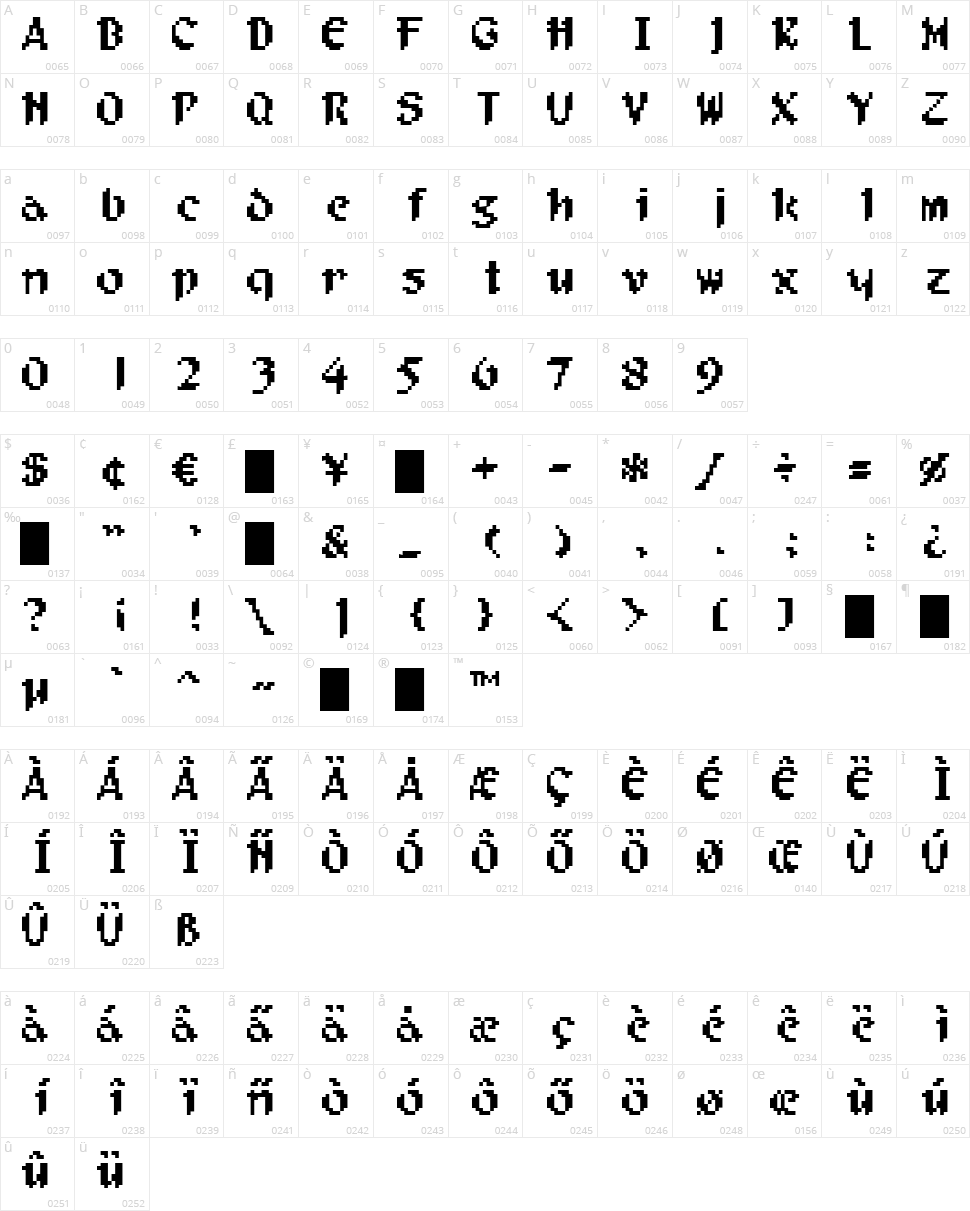
Filgaia
Filgaia by Caveras - based on the original pixel font used in the Wild Arms
video game for the Sony PlayStation (Media Vision/Sony, 1996).
Flash. The font in this archive is a pixel font and best displayed at a
font-size of 16 and multiples of this number.